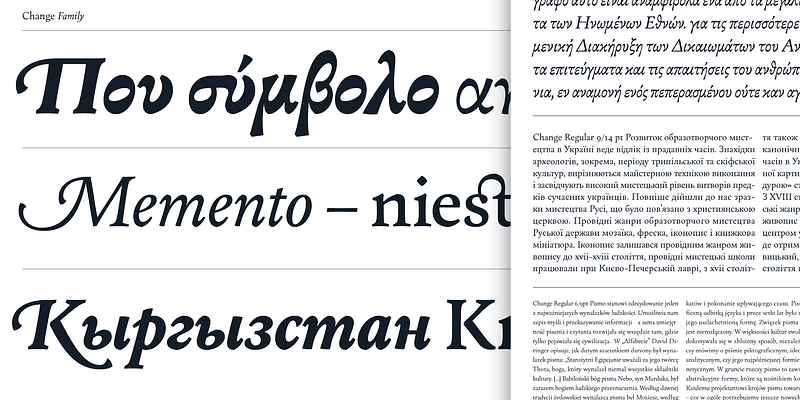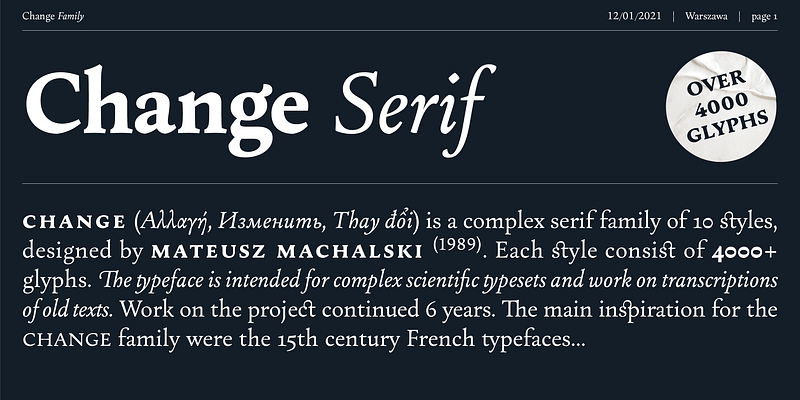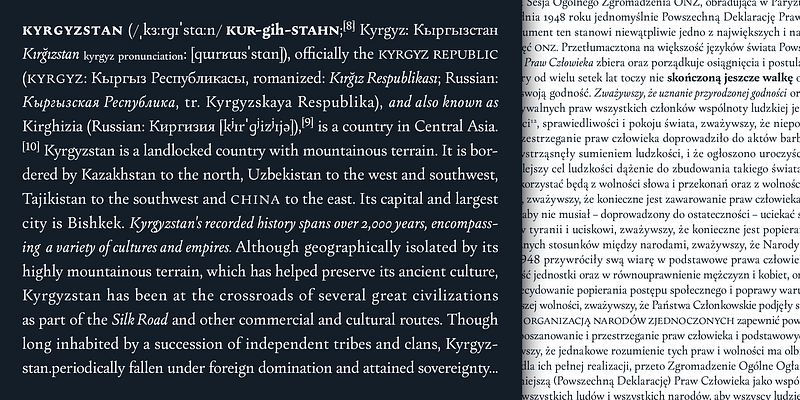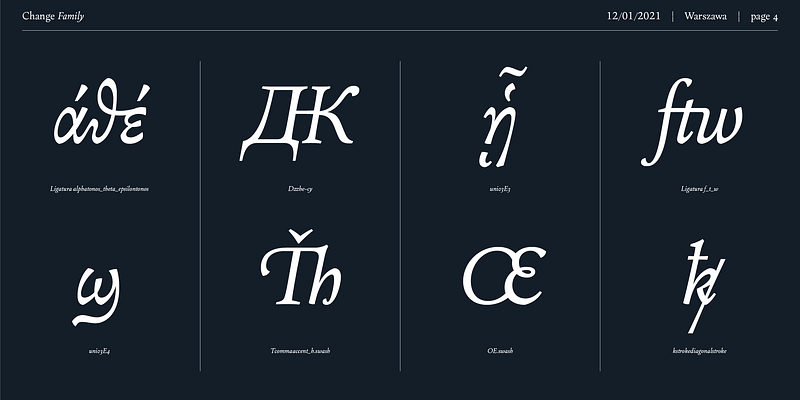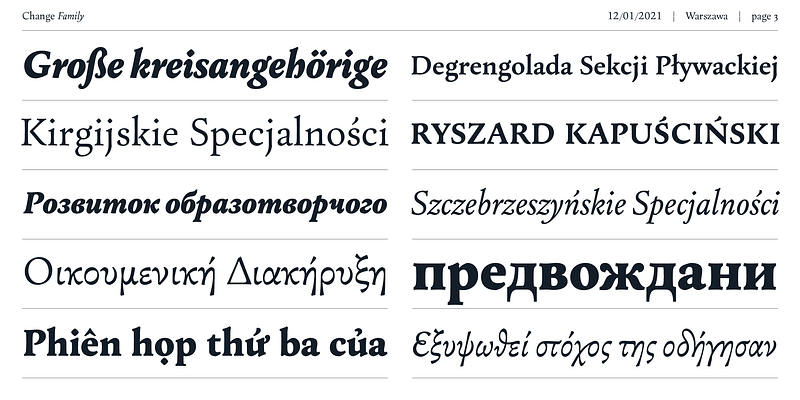
Change is a typeface family designed as a part of Mateusz Machalski’s PhD project, carried out in 2015-2021. The main goal was to create a typeface allowing for the typesetting of complex humanistic texts, containing many historical letterforms. The starting point was the preparation of most of the glyphs provided in unicode for Latin, Cyrillic and Greek. From the formal point of view, the Change family is based on Renaissance proportions with contemporary details. Classic upright version is paired with expressive and calligraphic italics, inspired by the works of Robert Granjon.
Each of the styles contains about 4,000 characters, allowing for a broad range of typesetting capabilities – multiscript publications, historical translations, and texts transcription. The crucial aspect was to treat all scripts equally. All OpenType features, such as swashes, final forms, decorative ligatures, can be found in Latin, Cyrillic and also Greek. The name of the typeface refers to the design process in which there are constant changes and corrections. On the other hand, it means to convey how this project influenced my perception of typography and allowed me to embrace it as a medium of artistic expression. Due to its similar proportions, Change works perfectly with the Gaultier typeface .